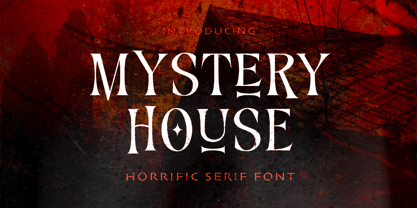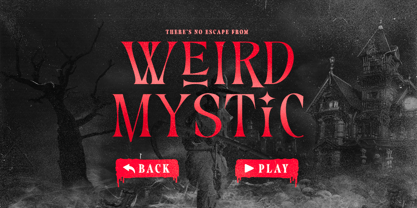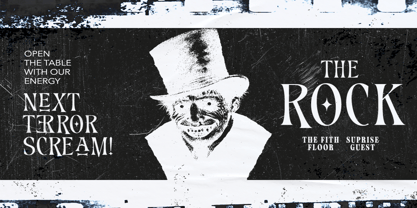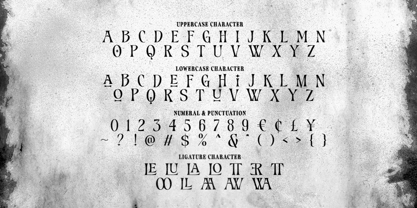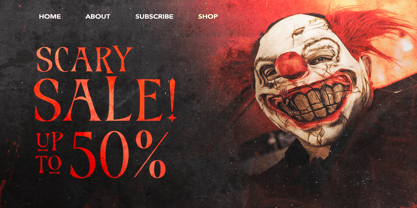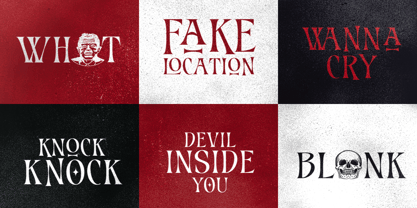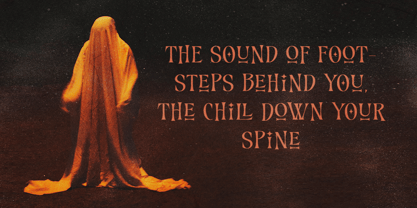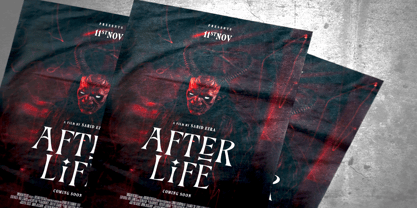
Mystery House
La familia tipográfica Mystery House fue diseñada por Sarid Ezra, Dzikrul Aulia y publicada por Bale Type. Mystery House contiene 1 estilos.
Mystery House is a serif based font with some twist and fun. With the uniqueness, this serif also can be horrific font choice for your next project that needs scary look. Combine the uppercase and lowercase to get some stunning look, and use the ligature for the maximal use. You can use this font for any occasions such as movie poster, halloween project, book cover. quotes with many possibilities. Not limited to horror project, you can also use this serif for your fancy and fun design. This font also support multi language!